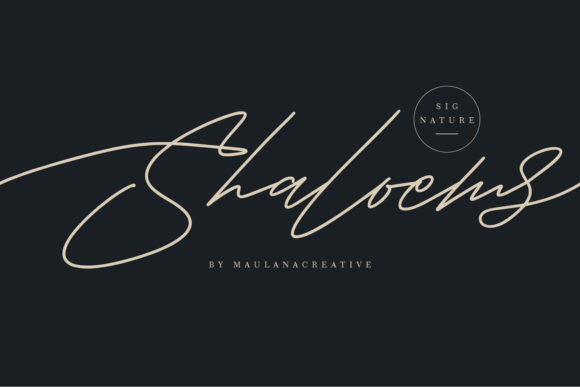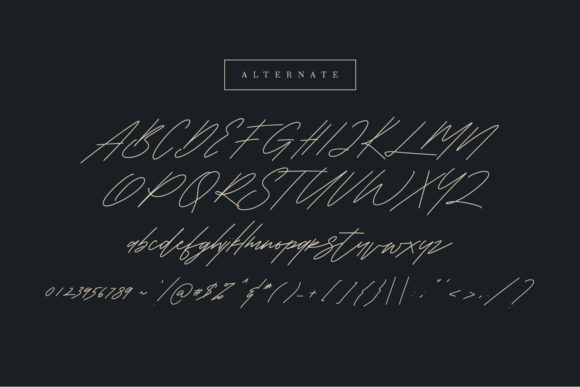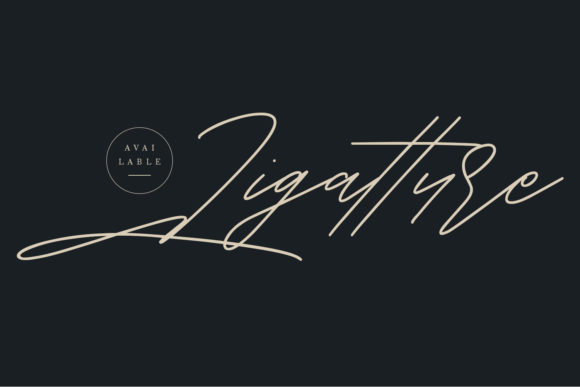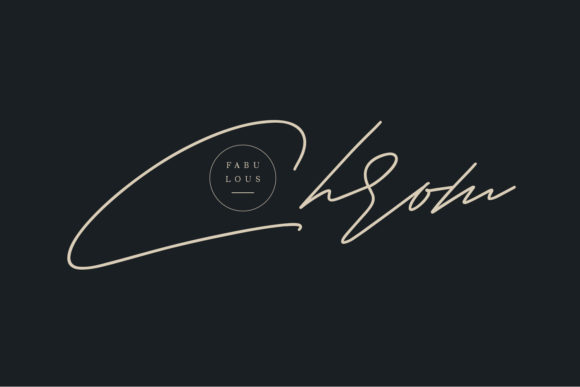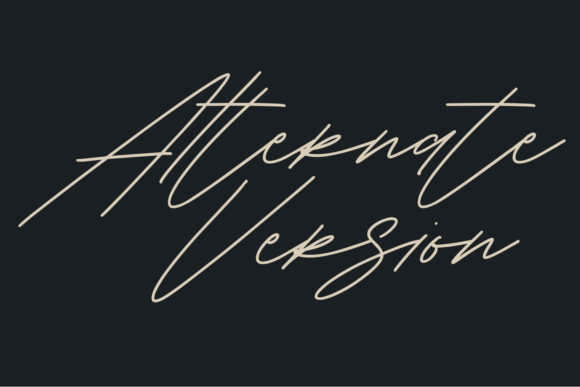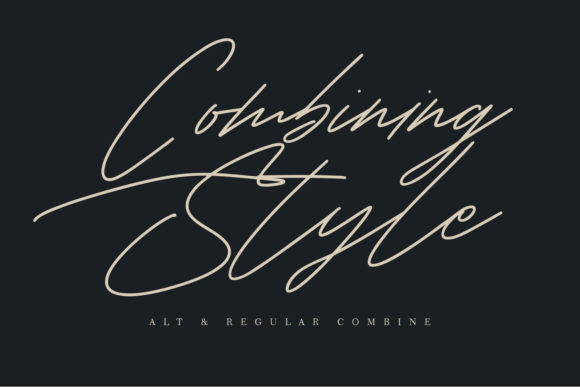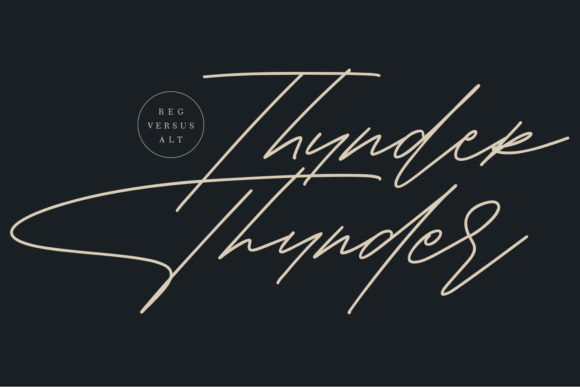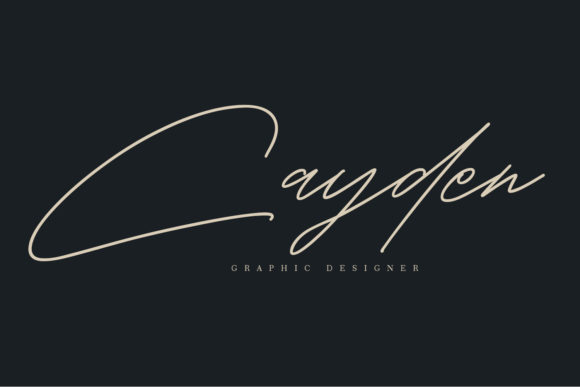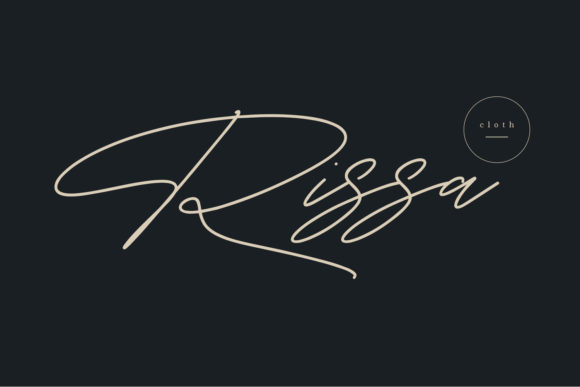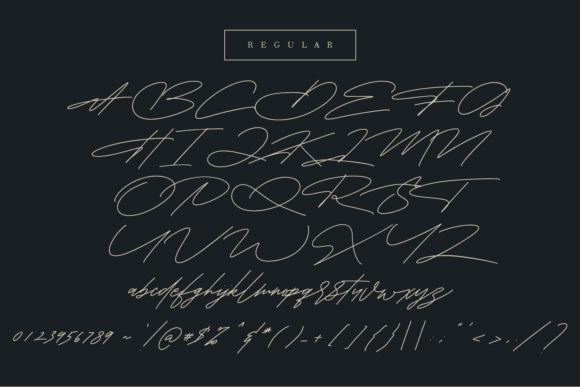
Shaloems Font
About Shaloems Font
Shaloems is a fun and light handwritten font with an amazing feel. It will add a unique spark to any design project!